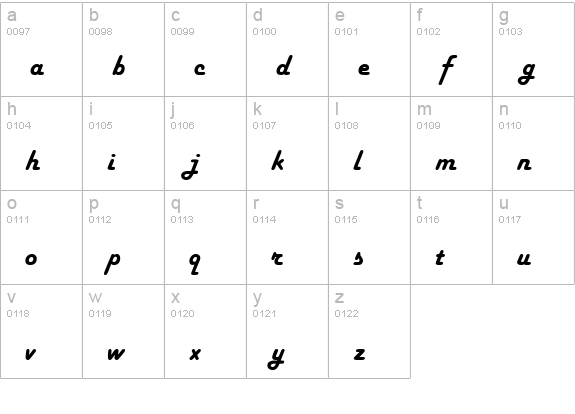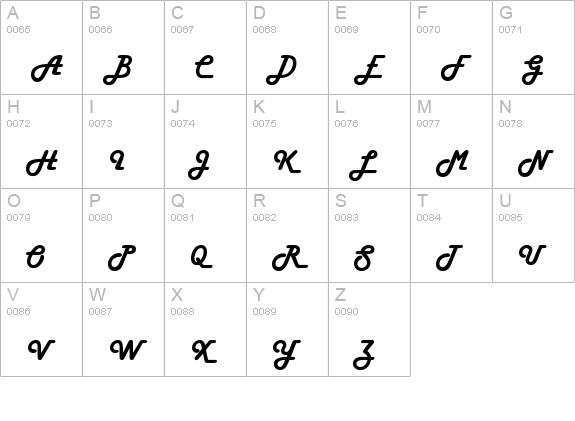
Introducing the delightful Hamburger font, a whimsical and playful typeface that is sure to add a touch of fun to your designs. With its rounded and friendly letterforms, this font captures the essence of cheerfulness, making it perfect for a variety of creative projects. Whether you're designing a children's book, crafting a logo for a quirky brand, or creating eye-catching social media graphics, Hamburger font will bring a dash of joy and creativity to your work. Its unique design combines a hand-drawn aesthetic with smooth curves, resulting in a font that is both charming and versatile. And the best part? Hamburger font is completely free! Yes, you read that right. This fantastic typeface is freely available to download at FontsMarket.com, allowing you to unleash your creativity without breaking the bank. With just a few clicks, you can have this delightful font at your fingertips, ready to infuse your designs with its whimsical personality. Don't miss out on this opportunity to add a touch of playfulness to your projects. Download Hamburger font today from FontsMarket.com and let your imagination run wild!